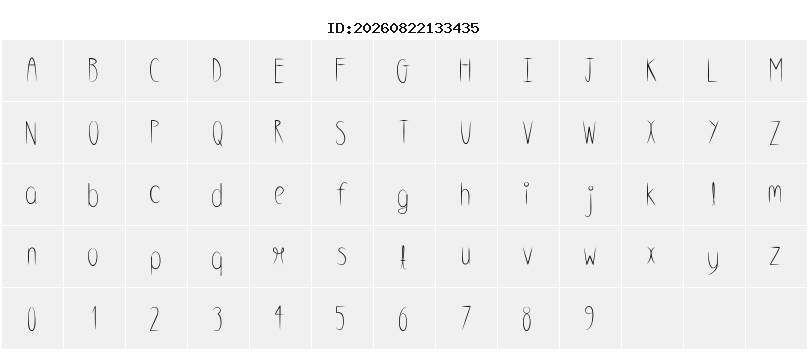
Screwdriver Modern 101 Preview
• Font Name: Screwdriver Modern 101
• Full Font Name: Screwdriver Modern 101 Regular
• PostScript Name: ScrewdriverModern101-Regular
About Screwdriver Modern 101.ttf
Screwdriver Modern 101.ttf is a modern, elegant sans-serif font designed for ultimate readability and visual harmony. Perfect for branding, headlines, web design, and print materials.